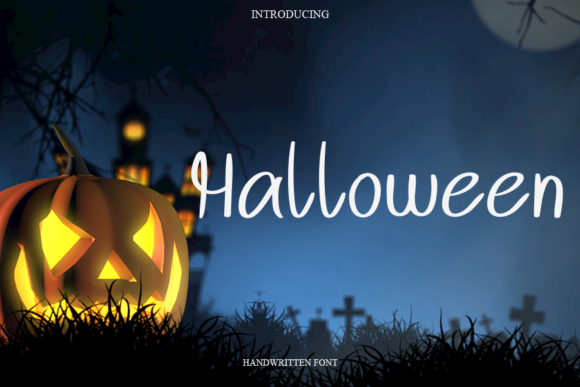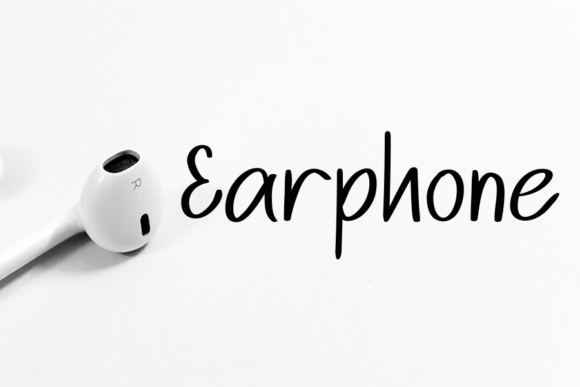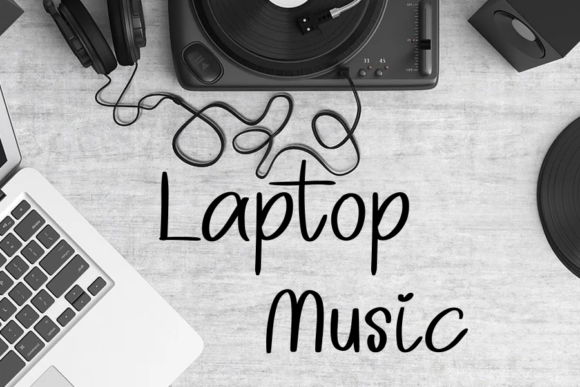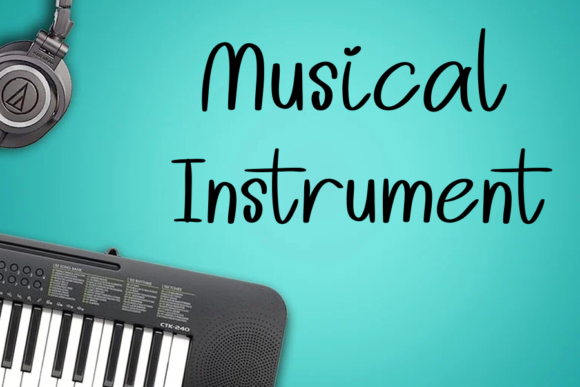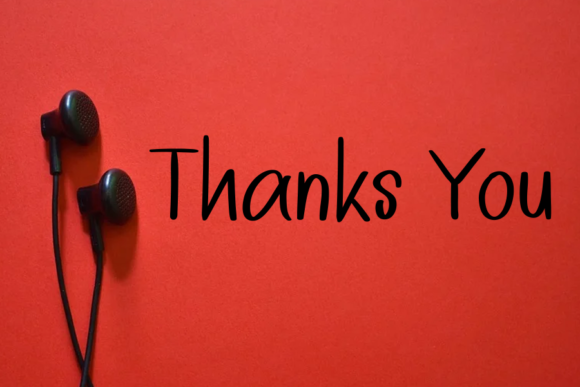
Halloween Font
About Halloween Font
Halloween is a handwritten font that can be used for all chalkboard quotes or teaching material! Its authentic handwritten look and feel will add a personal and realistic feel to your designs.